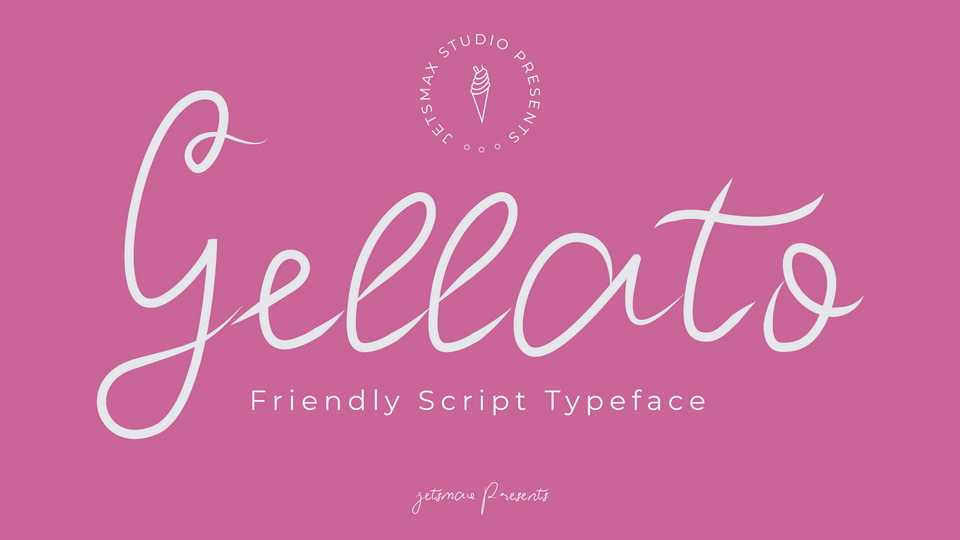
Download Gellato font, a sweetly inspired by the popular frozen desert from Italy and the gorgeous curve of the typeface followed the shape of an ice cream filling the cone.
Designer: Jetsmax Studio